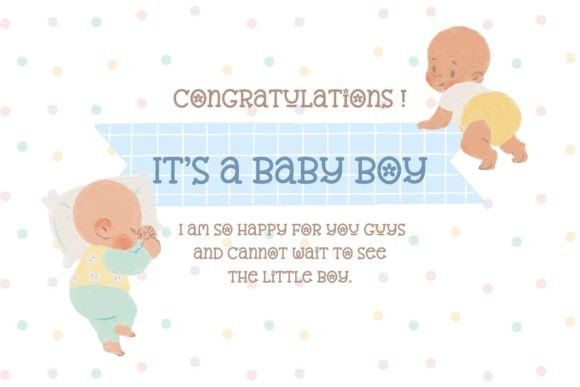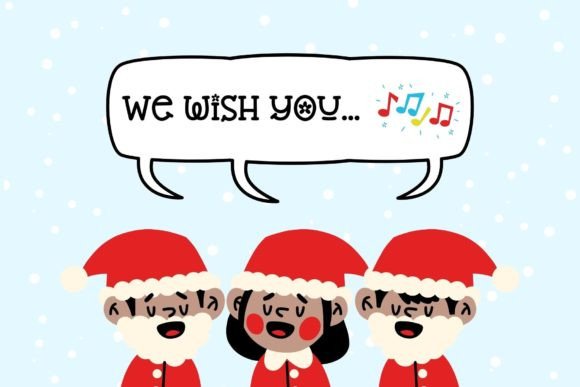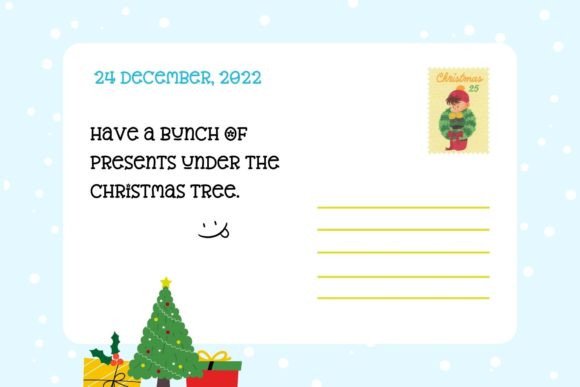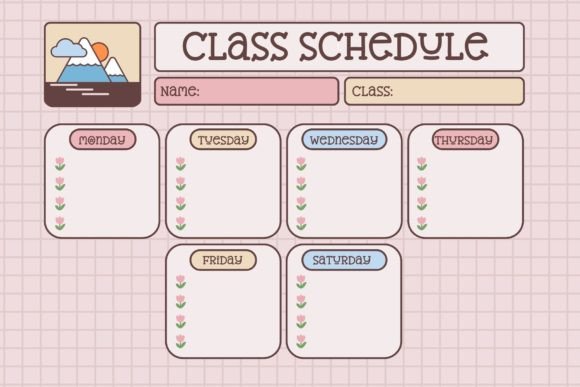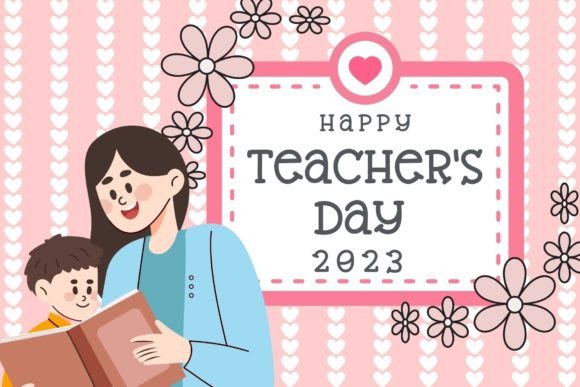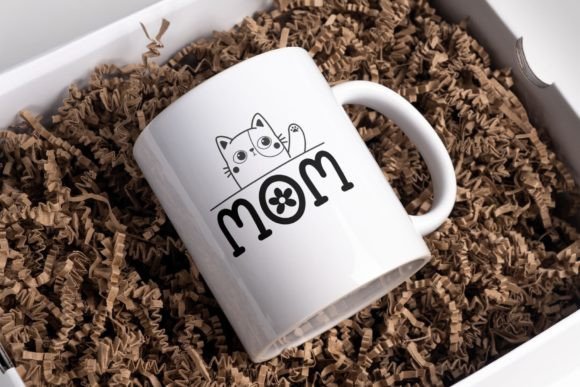
Introducing Fox Browny Font: The Charming Handwritten Serif Typeface
Are you on the hunt for a font that embodies cuteness and simplicity? Look no further than Fox Browny Font, a delightful handwritten serif typeface that’s perfect for a wide range of creative projects. With its clean lines and easy-to-read design, this font is sure to capture the hearts of designers and crafters alike.
The Perfect Blend of Cuteness and Simplicity
Fox Browny Font strikes the perfect balance between being playful and elegant. Its handwritten serif design gives it a charming and approachable feel, making it ideal for projects that require a personal touch. Whether you’re creating inspirational quotes, captivating headings, engaging blogs, striking logos, or inviting invitations, Fox Browny Font adds a delightful touch to any project.
Key Features of Fox Browny Font
• Handwritten Serif Design: Fox Browny Font boasts a beautiful handwritten serif design that’s both elegant and playful.
• Clean Lines: The font features clean lines that make it easy to read and understand, even at smaller font sizes.
• Cute and Simple: Fox Browny Font exudes cuteness and simplicity, making it perfect for projects that require a friendly and approachable tone.
• Versatile: This font is suitable for a wide range of creative projects, from inspirational quotes to logos and invitations.
Use Cases for Fox Browny Font
Fox Browny Font is an incredibly versatile font that can be used in various creative projects. Here are some use cases to get you started:
• Inspirational Quotes: Add a touch of elegance and sophistication to your inspirational quotes with Fox Browny Font.
• Captivating Headings: Use Fox Browny Font to create captivating headings that grab attention and draw readers in.
• Engaging Blogs: Make your blog posts more engaging and readable with Fox Browny Font.
• Striking Logos: Create a memorable brand identity with Fox Browny Font, perfect for logos and branding materials.
• Inviting Invitations: Add a personal touch to your invitations, whether it’s for a wedding, birthday party, or baby shower.
Why Choose Fox Browny Font?
With so many fonts available, why choose Fox Browny Font? Here are a few reasons why designers and crafters love this font:
• Unique and Creative: Fox Browny Font offers a unique and creative way to express yourself through your designs.
• Easy to Read: The font’s clean lines and simple design make it easy to read, even for readers with visual impairments.
• Customizable: Fox Browny Font can be customized to fit your project’s specific needs, from font size to color and texture.
• Supportive Community: As a popular font, Fox Browny Font has a supportive community of designers and crafters who share their work and offer feedback.
Tips for Using Fox Browny Font
To get the most out of Fox Browny Font, here are some tips to keep in mind:
• Pair with Other Fonts: Experiment with pairing Fox Browny Font with other fonts to create a unique and visually appealing design.
• Use Contrasting Colors: Use contrasting colors to make your text stand out and draw attention to your message.
• Experiment with Sizes: Play around with different font sizes to create visual hierarchy and add emphasis to your text.
• Add Texture and Patterns: Add texture and patterns to your design to give it a more organic and creative feel.
Fox Browny Font is a charming handwritten serif typeface that’s perfect for designers and crafters looking for a font that embodies cuteness and simplicity. With its clean lines, easy-to-read design, and versatility, this font is suitable for a wide range of creative projects. Whether you’re creating inspirational quotes, captivating headings, engaging blogs, striking logos, or inviting invitations, Fox Browny Font adds a delightful touch to any project. So why not give it a try and see how it can elevate your designs?